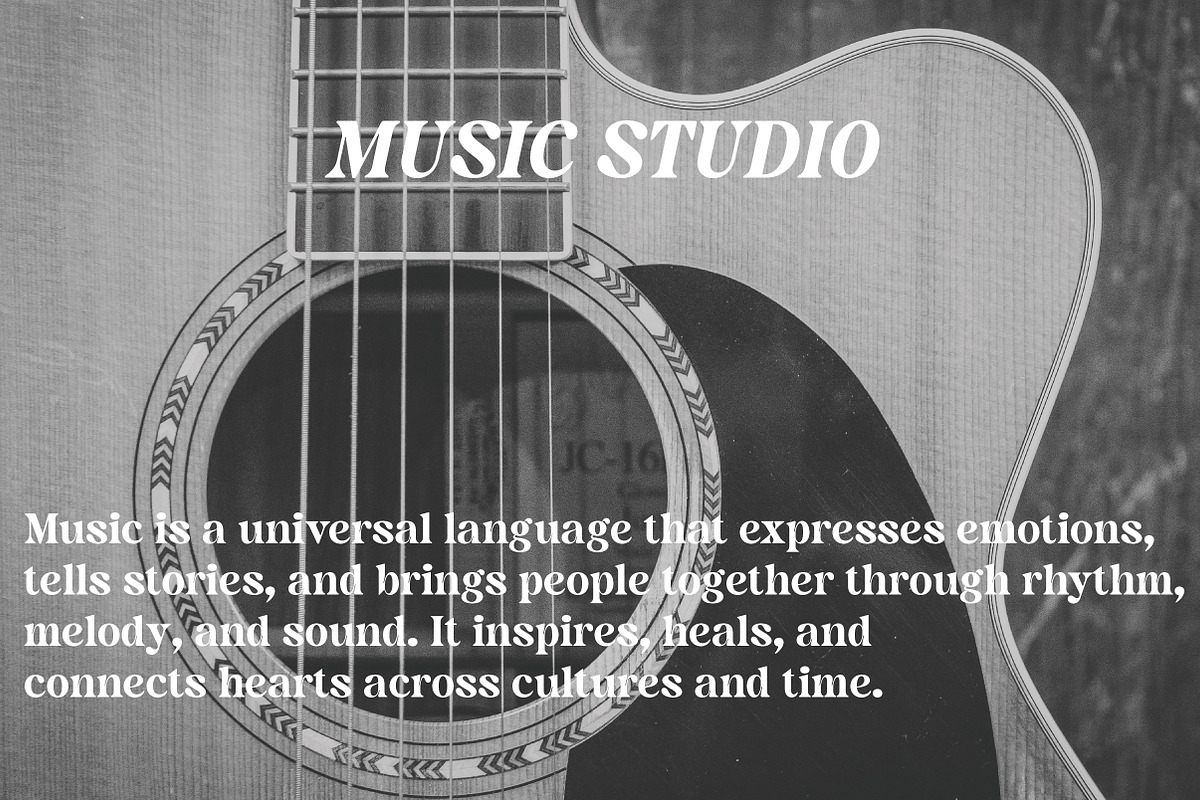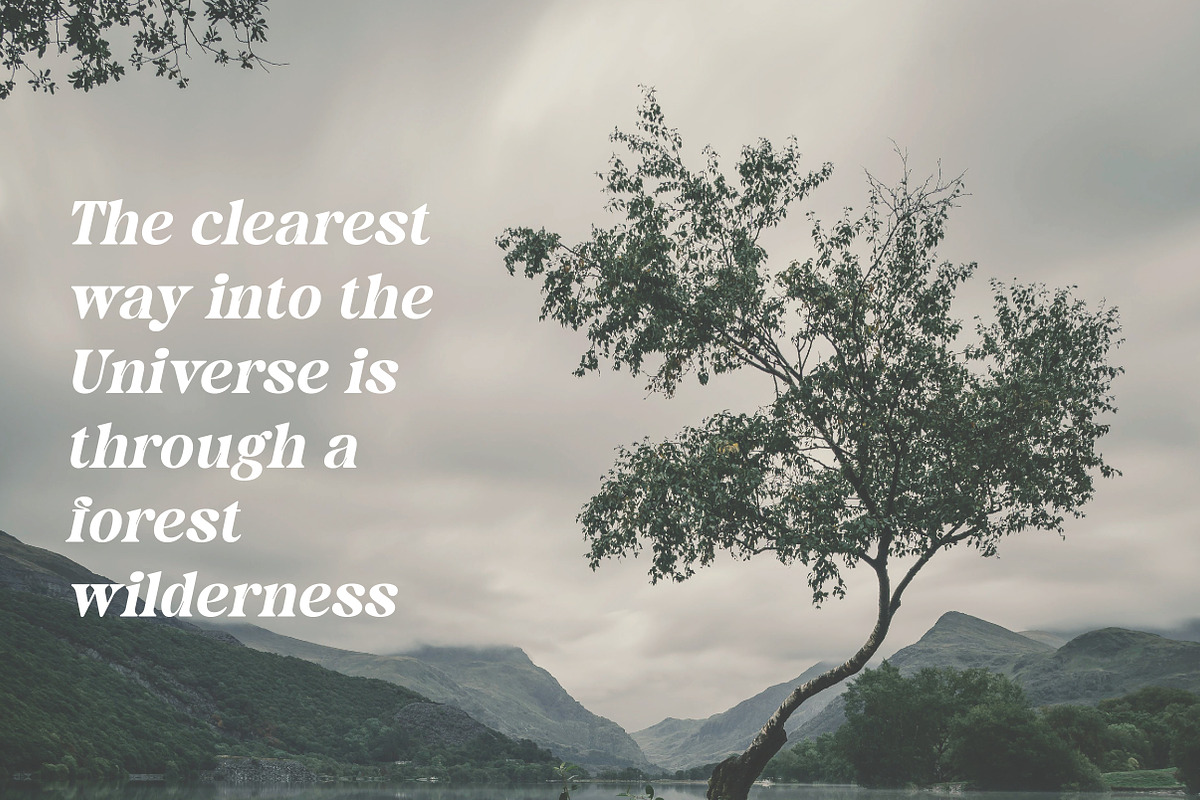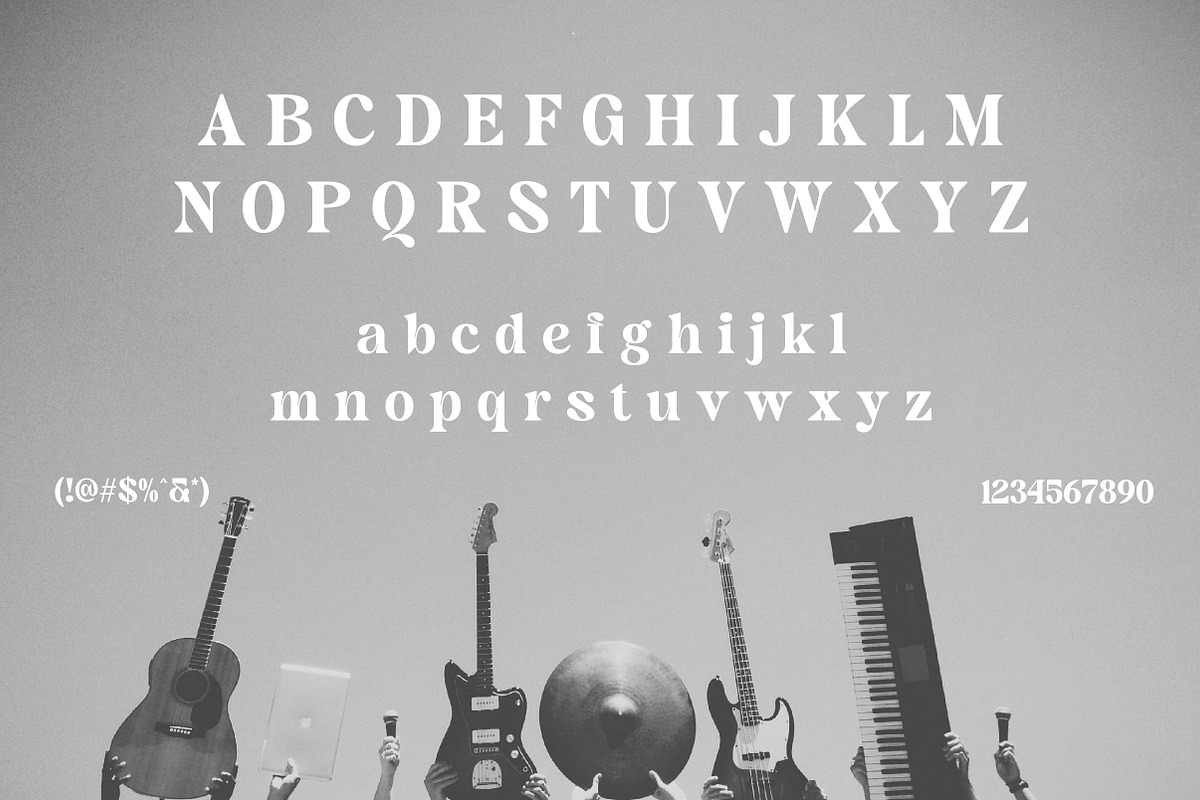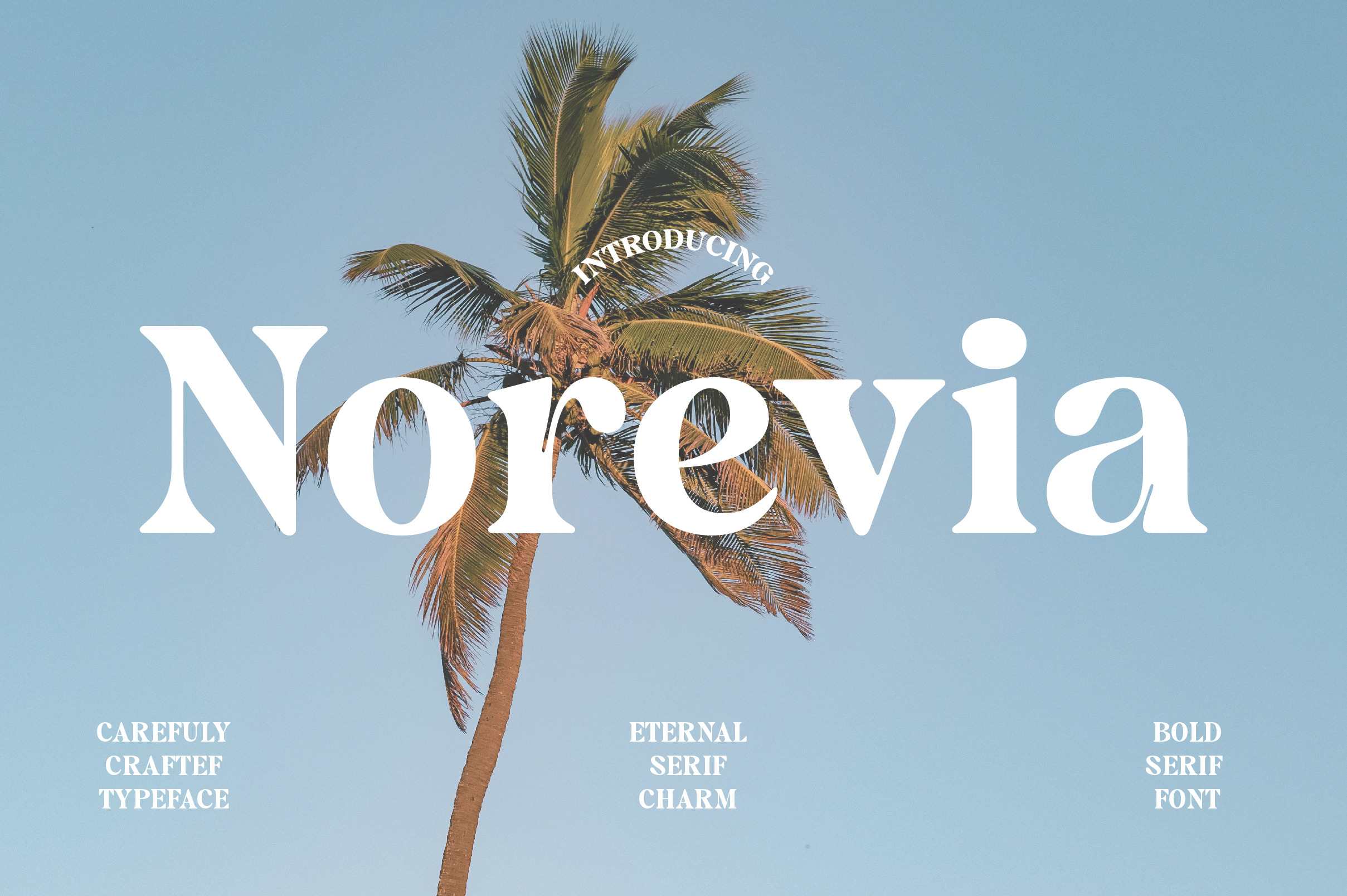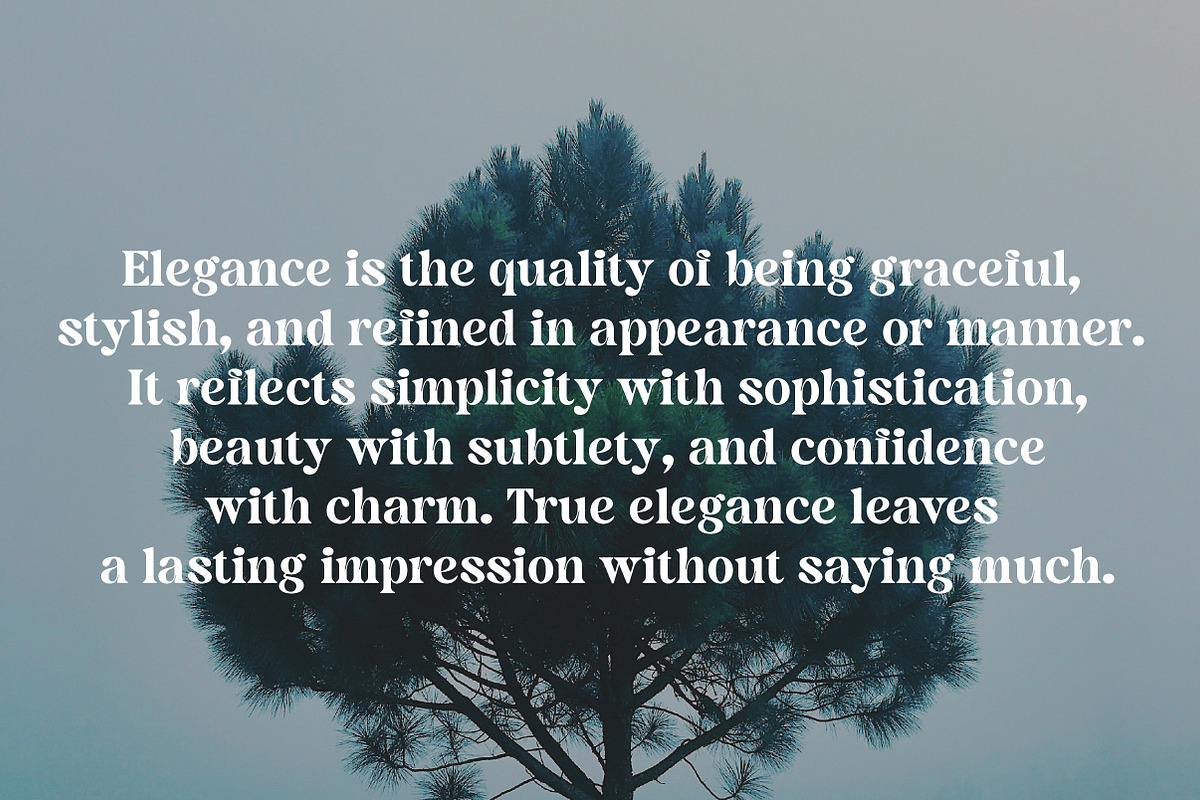
Norevia | Elegant Serif Typeface
Norevia is a graceful serif typeface that merges classic charm with modern precision. Available in both Regular and Italic styles, Norevia features elegant curves, sharp serifs, and harmonious letterforms—perfect for branding, editorial layouts, logos, invitations, product packaging, and premium digital content. The Regular style provides clean structure and readability, while the Italic style adds expressive flow and refined contrast. Together, they form a versatile serif duo suitable for both text and display use across print and digital media.
Norevia is the ideal serif font duo for designers who value elegance, legibility, and timeless typographic sophistication.